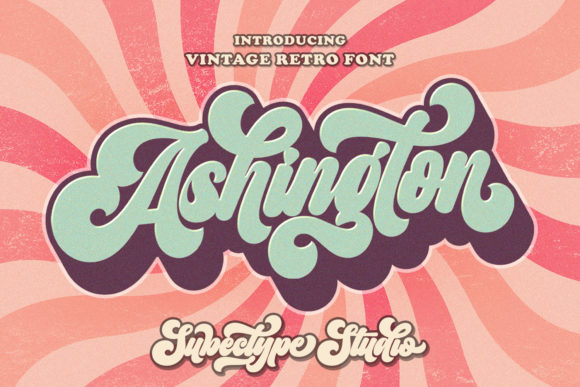
Ashington Font: A Vintage and Bold Handwritten Font to Elevate Your Designs
In the world of typography, fonts play a crucial role in conveying the tone and personality of a design. With the vast array of fonts available, it can be challenging to find the perfect one that captures the essence of your project. However, if you’re looking for a vintage and bold handwritten font that exudes elegance and sophistication, look no further than Ashington Font.
What is Ashington Font?
Ashington Font is a beautifully crafted, vintage-inspired handwritten font that is sure to make a statement in any design. Its bold and ravishing style is perfect for creating stunning designs that demand attention. Whether you’re working on a branding project, a wedding invitation, or a social media post, Ashington Font is the ideal choice.
Key Features of Ashington Font
- Vintage and Bold Style: Ashington Font boasts a unique, vintage-inspired design that is both bold and eye-catching.
- Handwritten Elegance: The font’s handwritten style adds a touch of elegance and sophistication to any design.
- Multilingual Support: The font supports multiple languages, making it a versatile choice for designers worldwide.
Uses of Ashington Font
Ashington Font is a versatile font that can be used in a variety of design projects, including:
- Branding and Logos: Create a lasting impression with Ashington Font’s bold and elegant style.
- Wedding Invitations and Stationery: Add a touch of sophistication and romance to your wedding designs.
- Social Media Graphics: Elevate your social media presence with stunning graphics created using Ashington Font.
- Packaging and Advertising: Make your products stand out with Ashington Font’s bold and eye-catching style.
Tips for Using Ashington Font
To get the most out of Ashington Font, here are some tips to keep in mind:
- Pair with Neutral Backgrounds: Ashington Font looks best on neutral backgrounds that allow the font to take center stage.
- Experiment with Colors: Try out different colors to find the perfect combination that complements your design.
Ashington Font is a stunning, vintage-inspired handwritten font that is perfect for designers looking to add a touch of elegance and sophistication to their projects. With its bold and ravishing style, PUA encoding, and multilingual support, Ashington Font is a versatile choice for a wide range of design applications. Whether you’re working on a branding project, wedding invitation, or social media graphic, Ashington Font is sure to elevate your design to the next level.